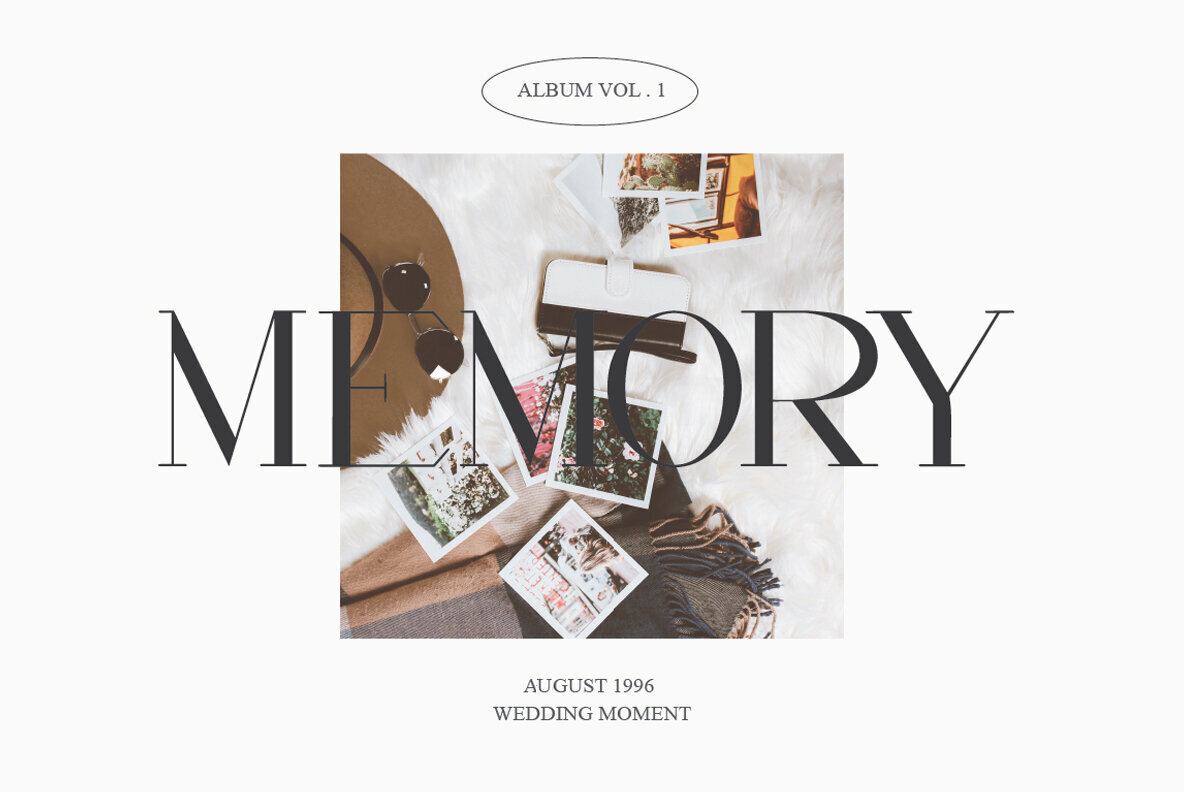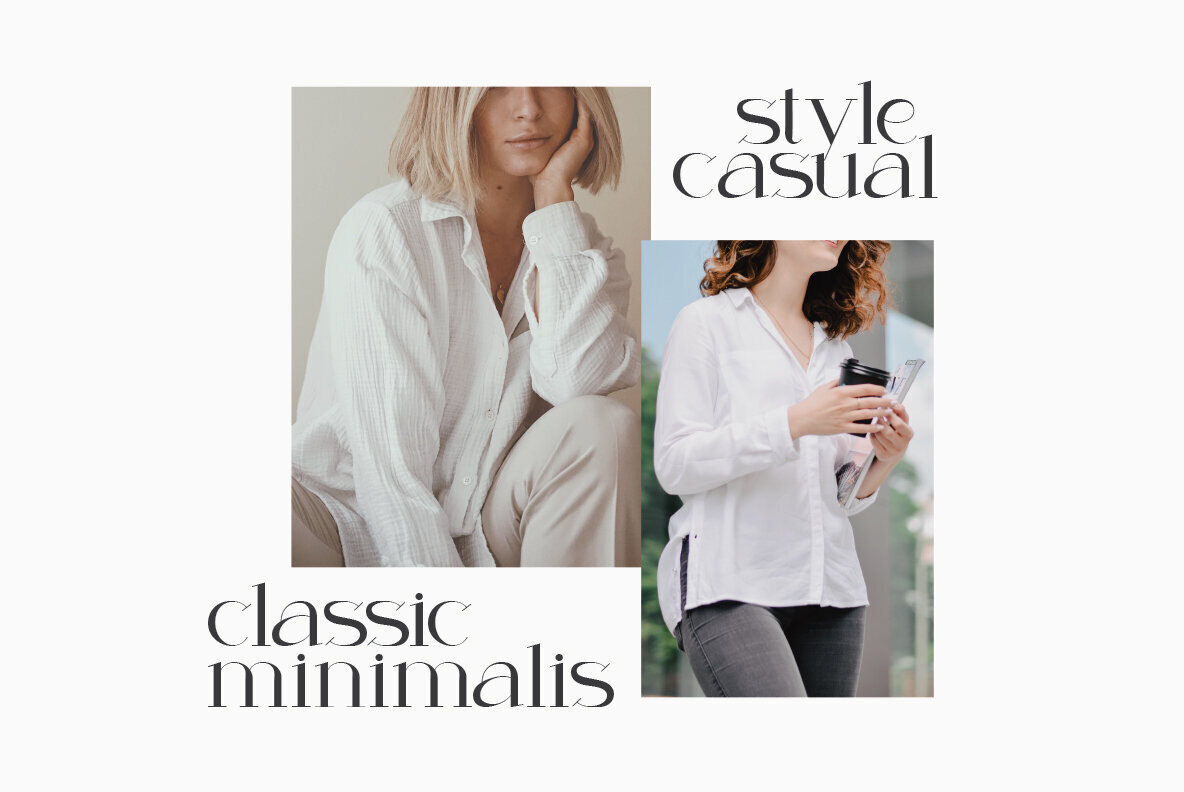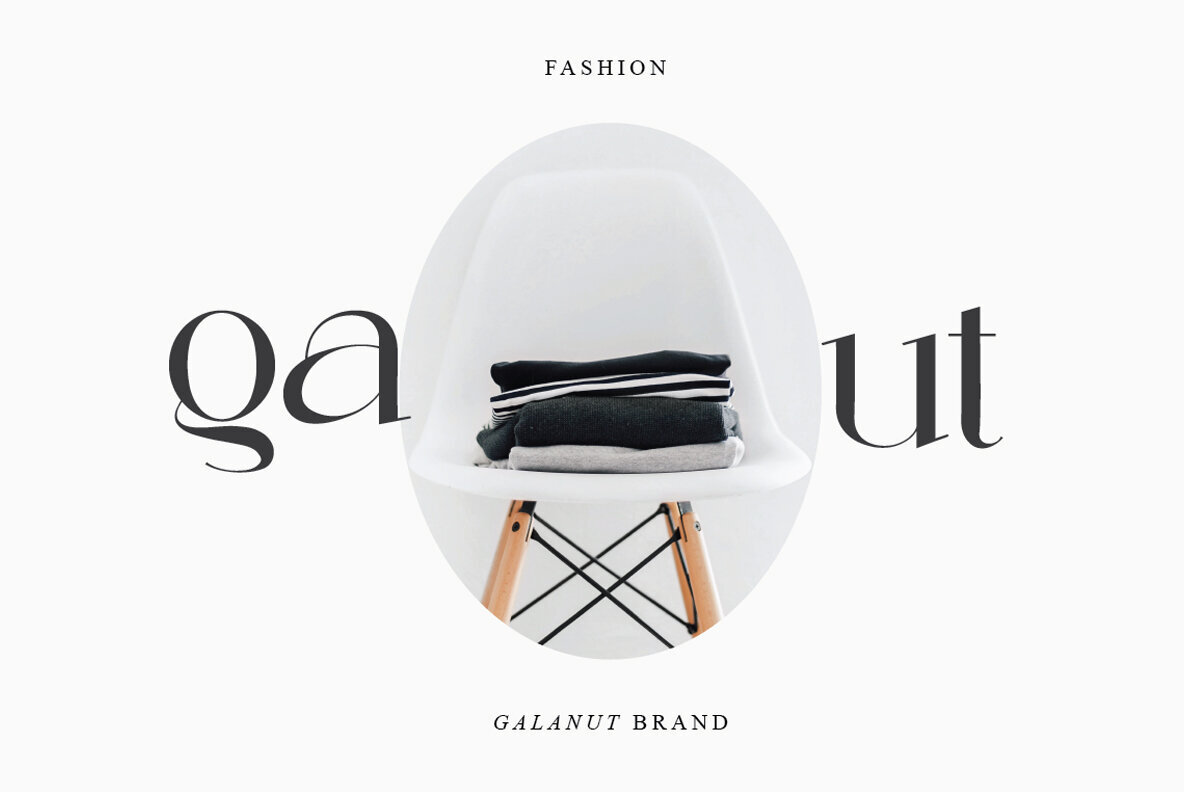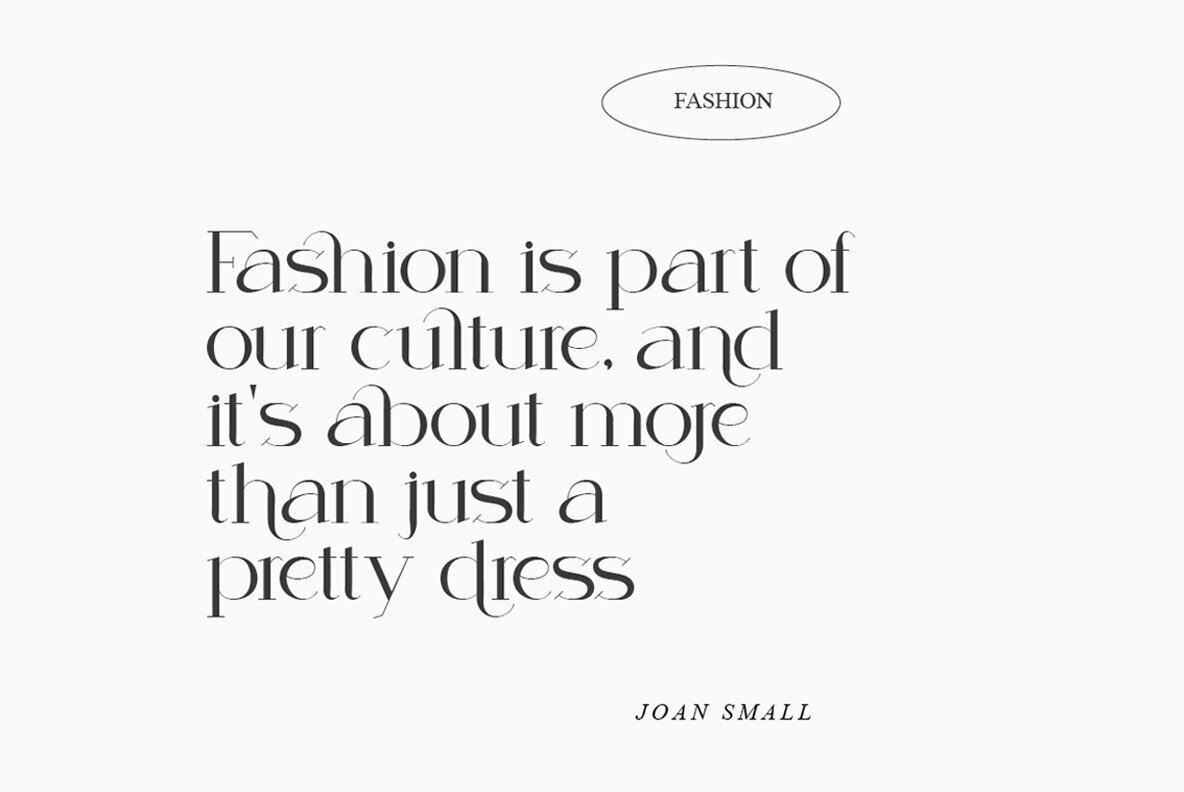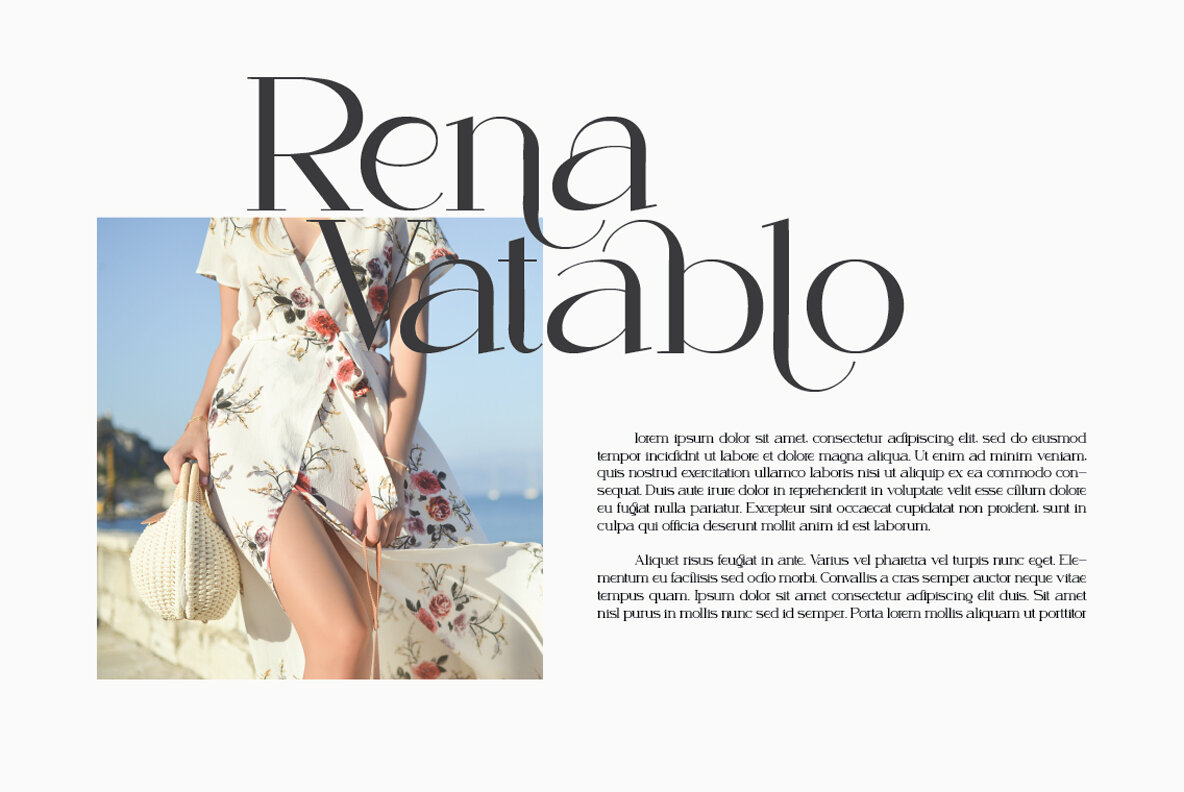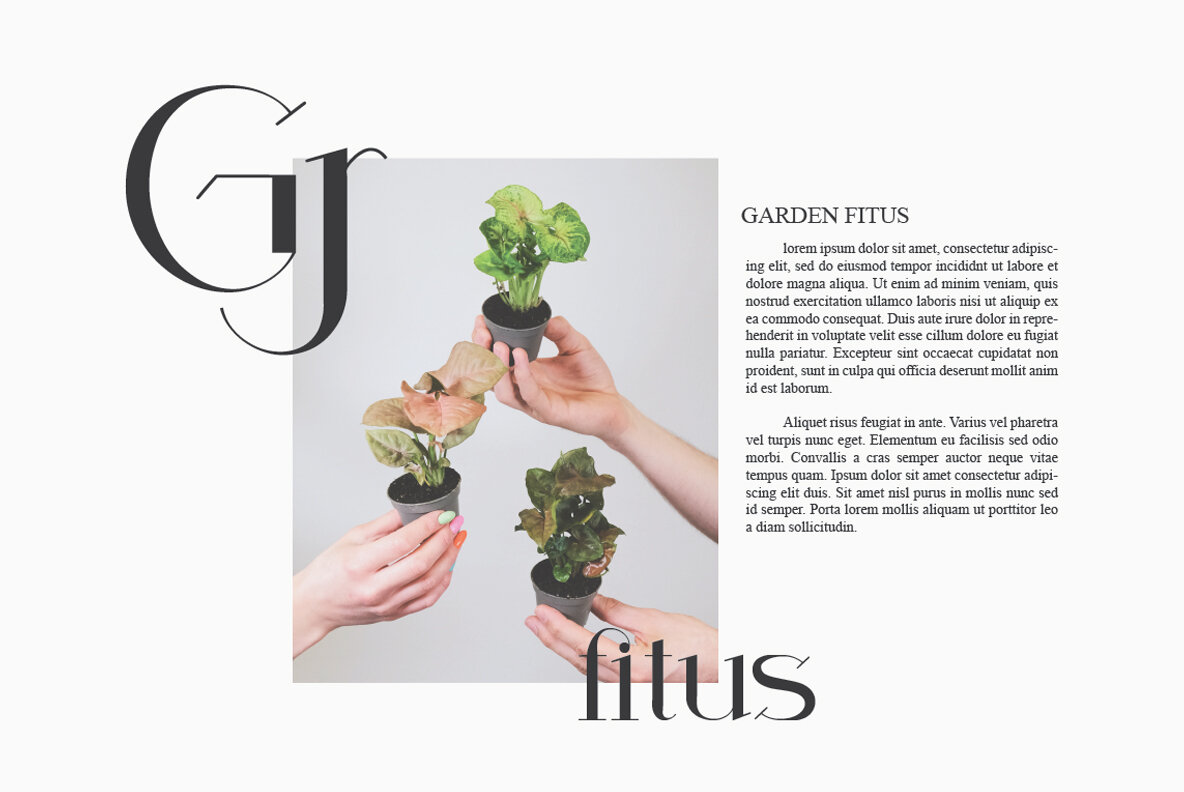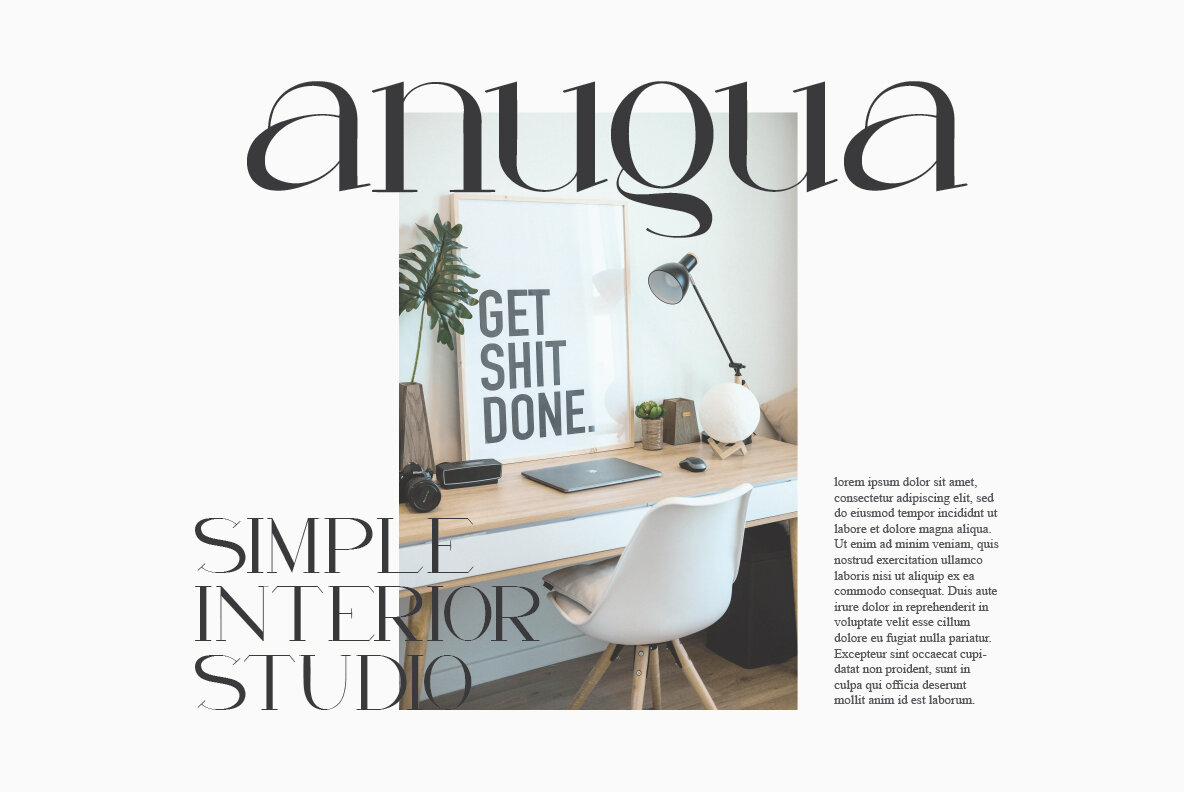
Mogiena Font
Mogiena
Mogiena Modern is a beautiful typeface with versatile features. It can be used for various purposes like logo design, clothing branding or product packaging to name just few!